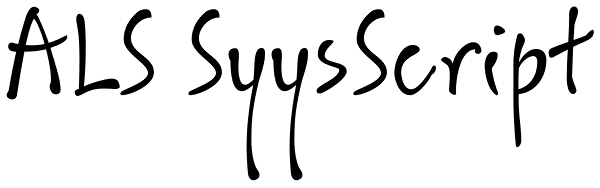
ALS SyysScript
Handwriting of a strong Carelian personality revived: It all started with this Soviet postcard I got from my aunt Katri more than twenty years ago inviting me come to Carelia in autumn. Katri had a very kind but also energetic personality, and I...
ALS SyysScript
ALSSyys Script Eco